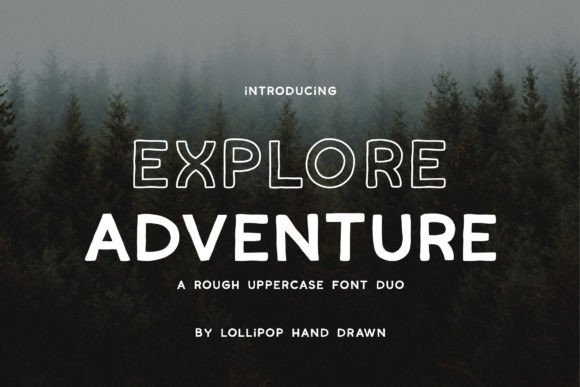
When it comes to bringing your vision to life, the right font can make all the difference. That’s where Explore Adventure Font comes in – a modern and cool sans serif font that’s perfect for creating spectacular designs. With its incredibly distinct and timeless style, this font is a valuable addition to any designer’s toolkit.
Explore Adventure Font Key Features
- Font Family: Explore Adventure Font is a unique, hand-drawn font designed to evoke a sense of adventure and exploration. It comes in 6 font styles: Regular, Italic, Bold, Bold Italic, Outline, and Fill.
- Character Set: The font includes a comprehensive set of characters, including uppercase and lowercase letters, numbers, punctuation marks, and special characters.
- Size and Resolution: Explore Adventure Font is designed to be scalable, making it suitable for use in various sizes and resolutions, from small text to large headings.
- Unique Characteristics: The font features a distinctive, hand-drawn style with subtle imperfections and texture, giving it a unique and eye-catching appearance.
Designer Review: Explore Adventure Font
Overall, I think the Explore Adventure Font has some great qualities that make it suitable for the right projects, but it also has some limitations that need to be considered.
- Unique aesthetic: The font has a distinctive, hand-drawn feel that can add a touch of personality to a design.
- Variety of weights: The font comes in multiple weights, which makes it easy to create a cohesive look across different elements of a design.
- Good for display text: The font’s bold, adventurous feel makes it well-suited for use in headings and titles.
- Limited legibility: The font’s unique style can sometimes make it difficult to read, especially in smaller sizes or at a distance.
- Lack of consistency: The font’s handmade feel can sometimes result in inconsistencies in the spacing and alignment of characters.
The Explore Adventure Font is a great choice for designers who want to add a touch of personality and whimsy to their projects. However, it may not be the best choice for designs that require a high level of legibility or consistency. With some careful consideration and use, this font can be a great asset in a designer’s toolkit.
Tips for Getting the Most Out of Explore Adventure Font
1. Experiment with different font sizes and styles to create visual interest.
2. Use Explore Adventure Font in combination with other fonts to create a unique look.
3. Apply the font to images and graphics to add a touch of adventure to your design.
Common Use Cases for Explore Adventure Font
1. Travel and tourism branding.
2. Outdoor and adventure marketing materials.
3. Creative and artistic projects.